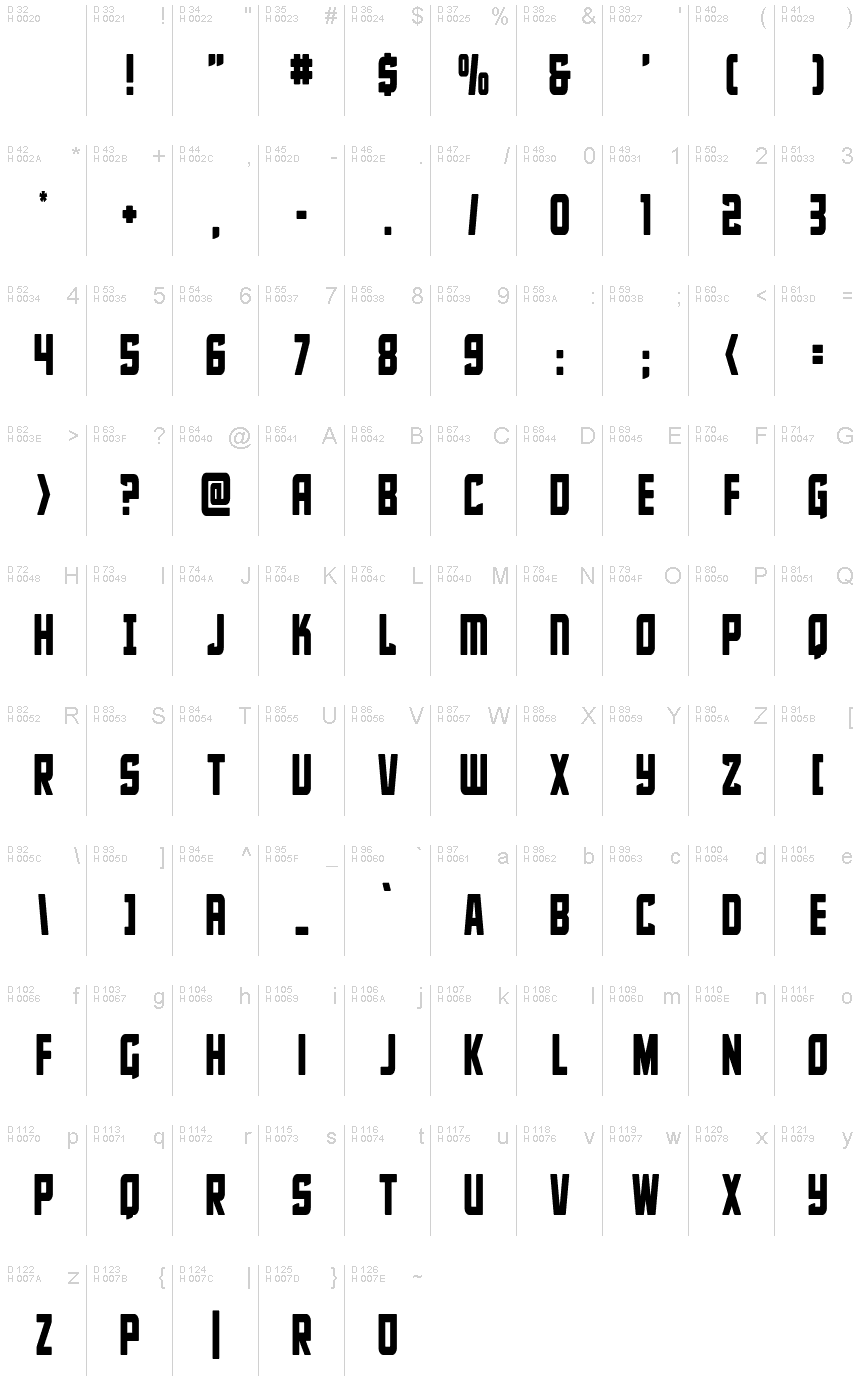
Phantom Storm Condensed
Phantom Storm Condensed is a cutting-edge techno display font designed by Iconian Fonts. With its semi-bold weight and extra-condensed width, this font brings a futuristic vibe to any project. Perfect for branding, packaging, and advertising materials, Phantom Storm Condensed adds an edgy touch to your designs. This font is ideal for tech companies, gaming products, or anything that requires a bold and modern look. Get ready to make an impact with Phantom Storm Condensed – the ultimate choice for designers looking to push boundaries and stand out from the crowd.